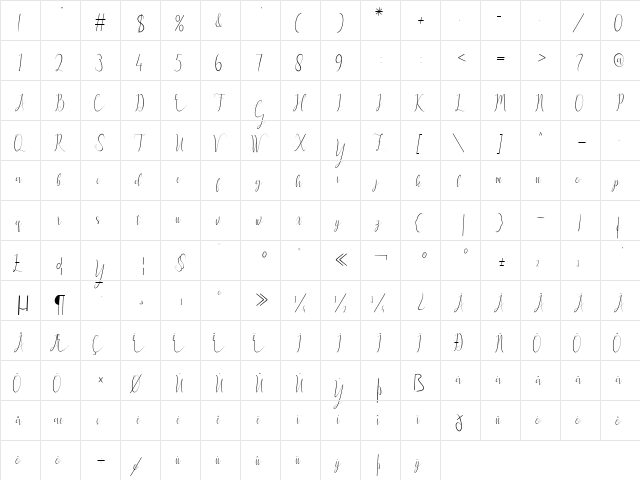
Legenda Regular
| Foundry | muhammad Aidil |
Design Context for Legenda Typeface
Legenda is a composed and adaptable typeface that performs quietly and consistently across a wide range of design contexts.